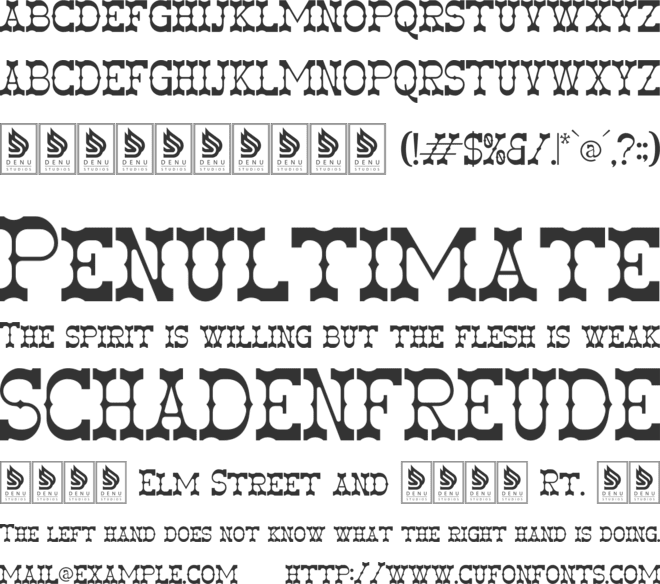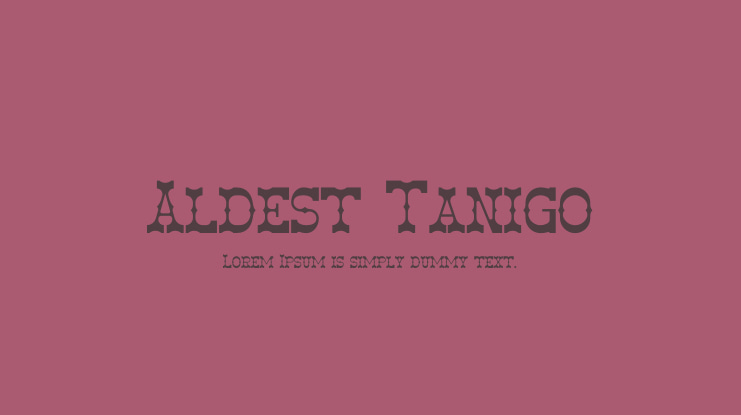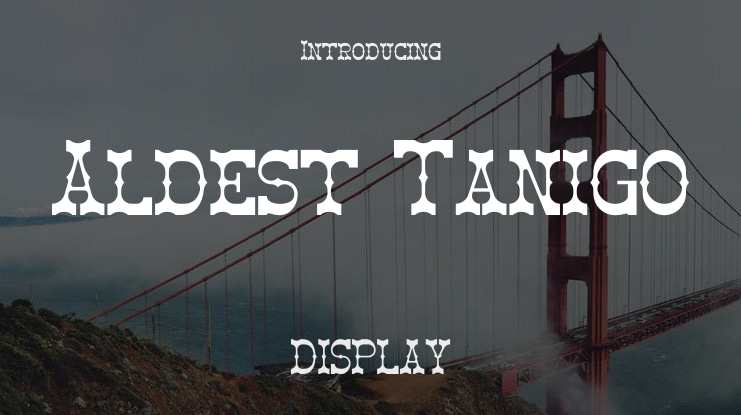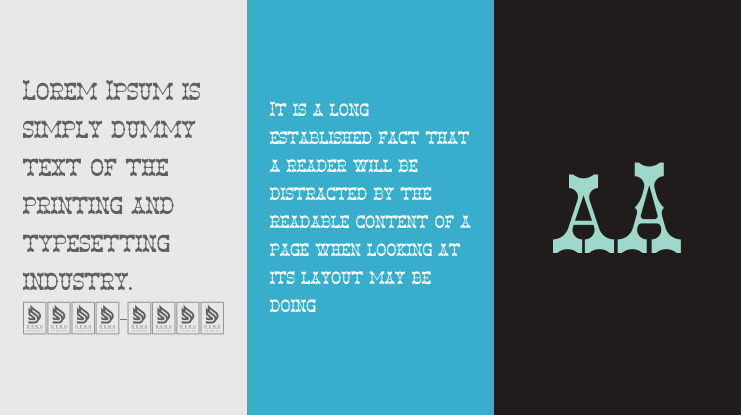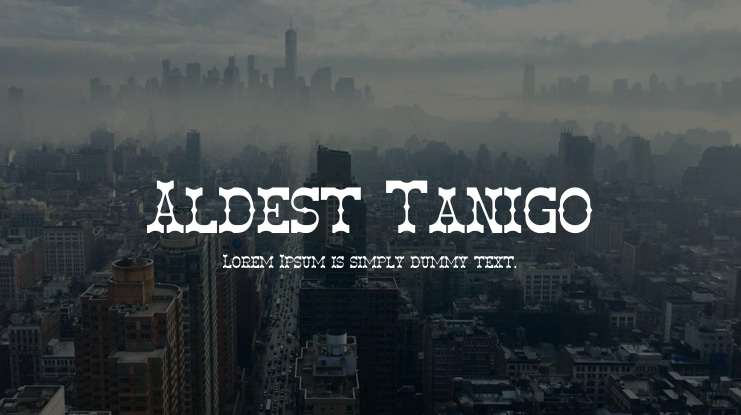
Aldest Tanigo Font
Aldest Tanigo | Western Slab Serif is a versatile font suitable for various projects such as logos, branding, homeware designs, product packaging, quotes, posters, and more, that require a Western Slab Serif style.